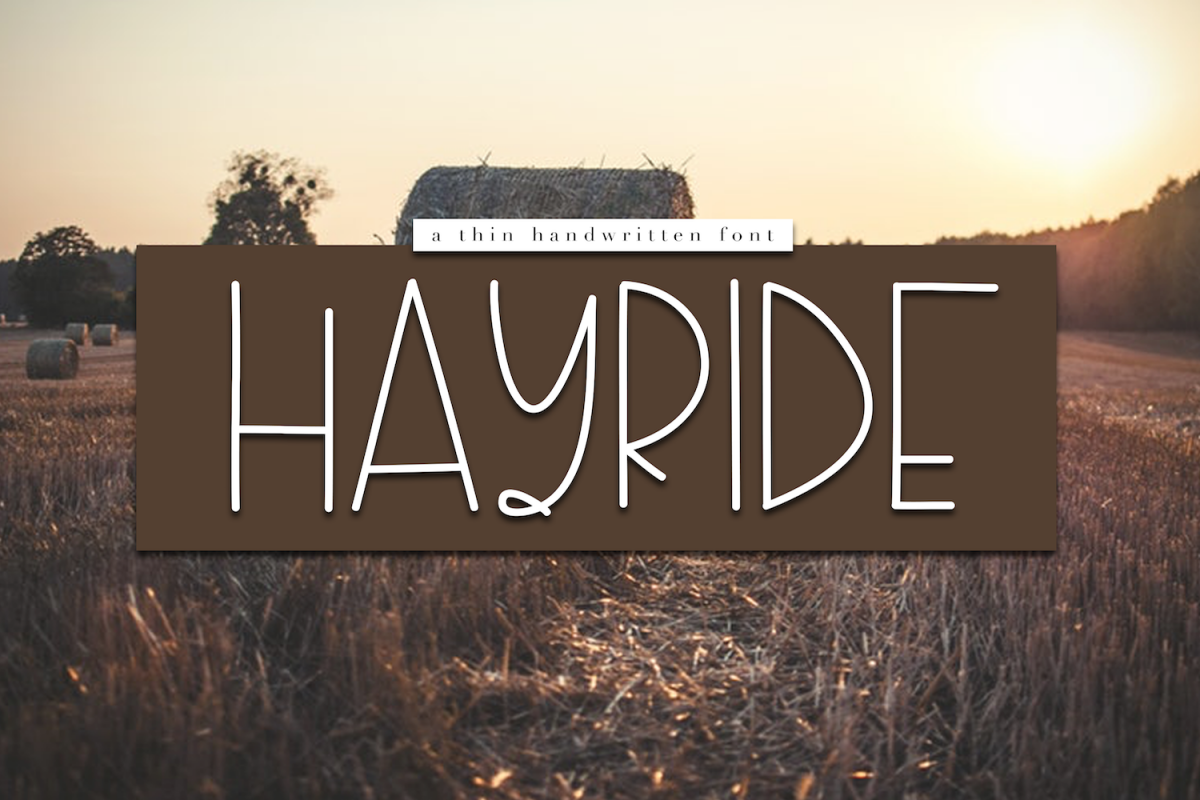
Hayride - A Handwritten Font
Hayride
Hayride is a handwritten font with tall, thin letters.  It is an ALL CAPS font.
This font is perfect for quotes, headings, blogs, logos, invitations and more!
This font does include accent characters.